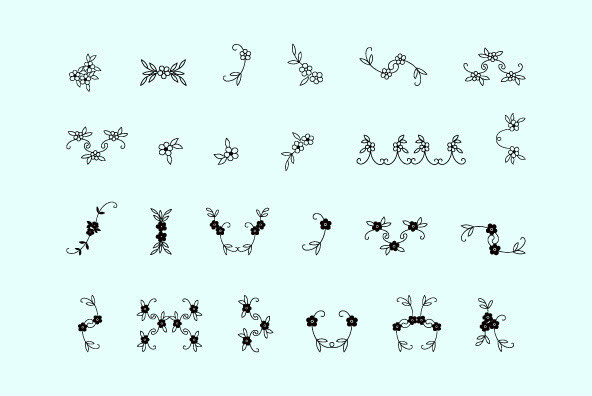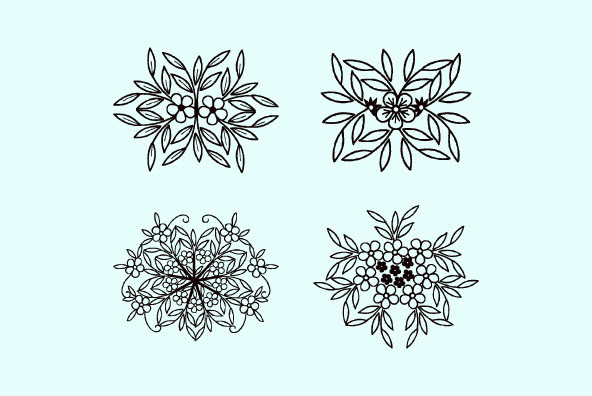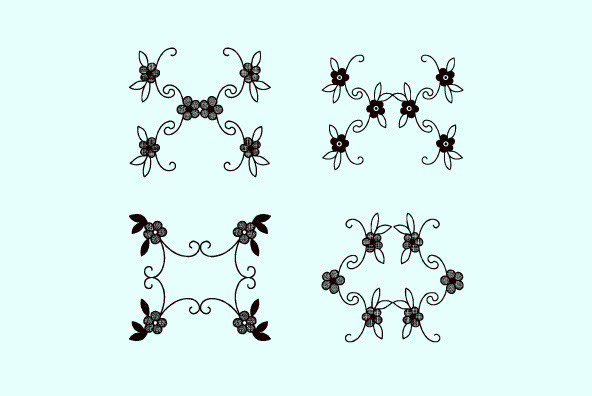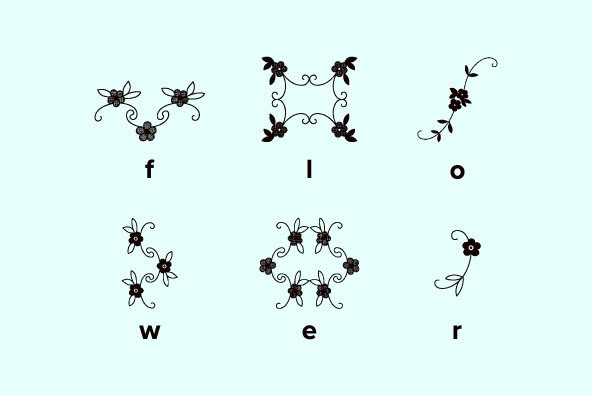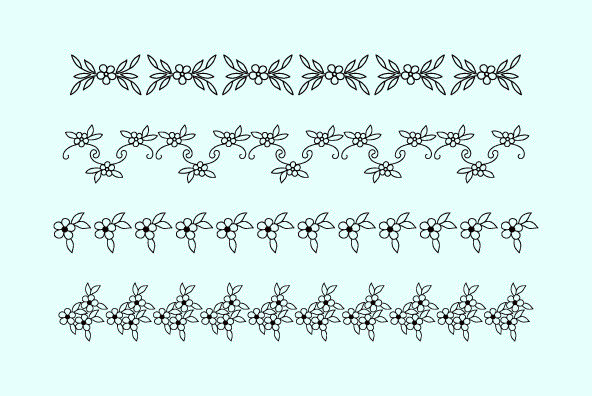
Menina Graciosa Ornaments
Meninas are the new comprehensive collection of innovative craft alphabets and ornaments researched in rare cross stitch booklets from 1850 to 1930. This alphabet and ornaments series was entirely designed by hand without use of auto tracing by Iza W from Intellecta Design. Menina means Girl in Portuguese. Menina Graciosa is a Graceful Girl.